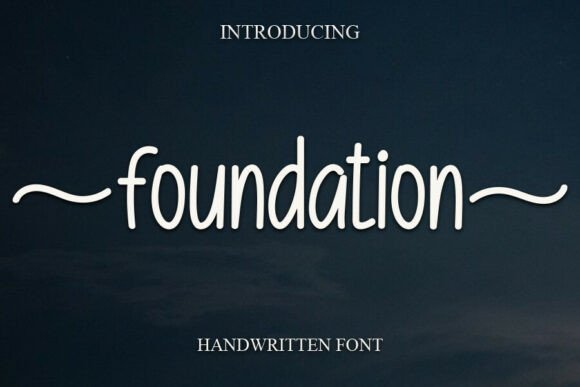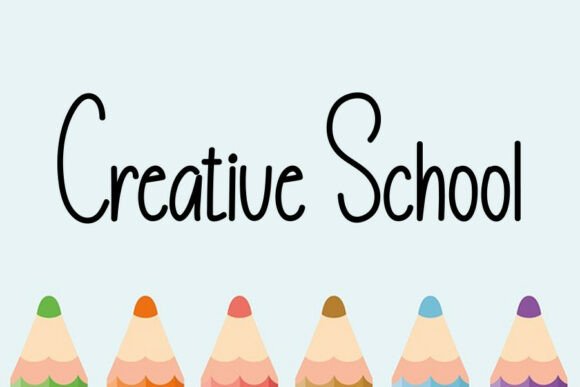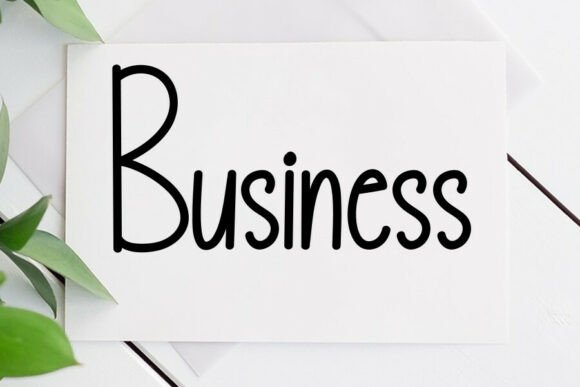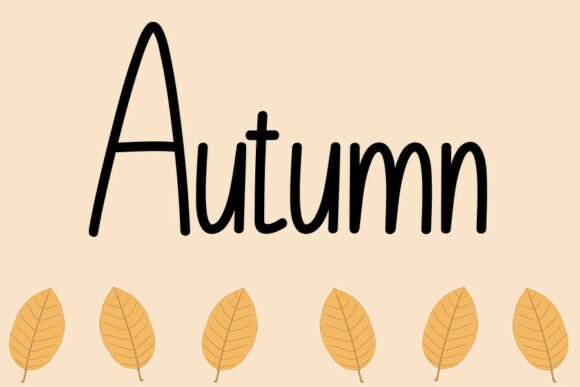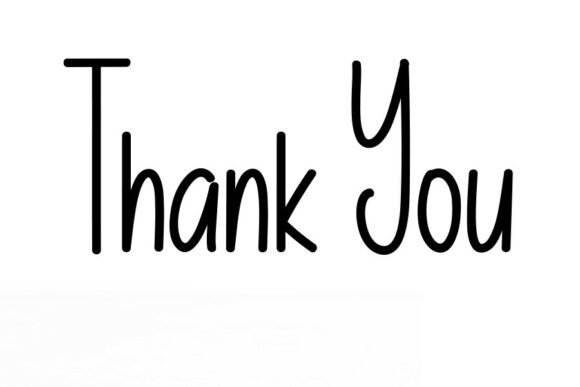
Creating with Heart: The Power of the Foundation Font
Have you ever found yourself in a creative flow, surrounded by half-finished projects and scribbled notes, yet feeling completely in the zone? For designers, those moments are a dream come true. And when the idea strikes, the right font can be the difference between a good design and a great one. That’s where the Foundation Font comes in – a tall, playful handwritten font that brings a sense of warmth and personality to any project.
With its slim, elongated characters and clean handwritten style, the Foundation Font is perfect for personal and emotional projects. Whether it’s a Father’s Day design, a greeting card, or a t-shirt, this font combines charm and character to make your message shine. As a designer, you’ll appreciate the versatility and expressiveness of the Foundation Font, making it a valuable addition to your toolkit.
Foundation Font Key Features
- Unique Characteristics: Unique blend of modern and classic font styles, ideal for use in a wide range of applications
Designer Review: Foundation Font
As a designer, I was excited to dive into the Foundation Font and see what it had to offer. Overall, I was pleased with the results, but there were some limitations that I’d like to highlight.
- ✨ Clean and minimalistic design: The Foundation Font has a sleek, modern aesthetic that works well for a variety of applications, from corporate to creative projects.
- ✨ High legibility: The font is highly readable, even at small font sizes, making it perfect for digital displays and printed materials.
- ✨ Versatility: The Foundation Font comes in multiple weights, from light to bold, making it easy to use in a range of contexts.
Limitsations:
- ⚠️ Limited expressiveness: While the font is clean and easy to read, it may not be the best choice for projects that require a lot of personality or emotional expression.
- ⚠️ Limited language support: The font may not be optimized for languages with non-Latin scripts, which could be a limitation for global projects.
Overall, I’d say the Foundation Font is a solid choice for designers who need a clean, readable font for a variety of projects. While it may not be the best fit for every project, it’s a great option to have in your toolkit.
Foundation Font Practical Application Guide
Getting the Most Out of Foundation Font
For optimal results, use the Foundation Font in combination with high-quality images and graphics. You can also experiment with different font sizes and styles to create visually appealing designs.
The Foundation Font is ideal for creating professional-looking documents, presentations, and designs. It’s particularly useful for:
- Corporate branding and marketing materials
- Business reports and proposals
- Infographics and data visualizations
Alternatives to Foundation Font for Designers
Helvetica
Helvetica is a sans-serif font that is widely used in graphic design. It is clean, simple, and highly legible. Helvetica is ideal for use in logos, signage, and body text where a neutral, modern feel is desired. Compared to Foundation Font, Helvetica is more versatile and has a wider range of applications.
Montserrat is a sans-serif font designed specifically for urban environments. It is highly legible in small sizes and has a strong, modern feel. Montserrat is ideal for use in digital products, signage, and body text where a strong, urban feel is desired. Compared to Foundation Font, Montserrat is more modern and has a stronger emphasis on urbanity.
Avenir is a sans-serif font with a geometric feel. It is highly legible and has a strong, modern feel. Avenir is ideal for use in logos, branding, and body text where a sophisticated, modern feel is desired. Compared to Foundation Font, Avenir is more sophisticated and has a stronger emphasis on elegance.